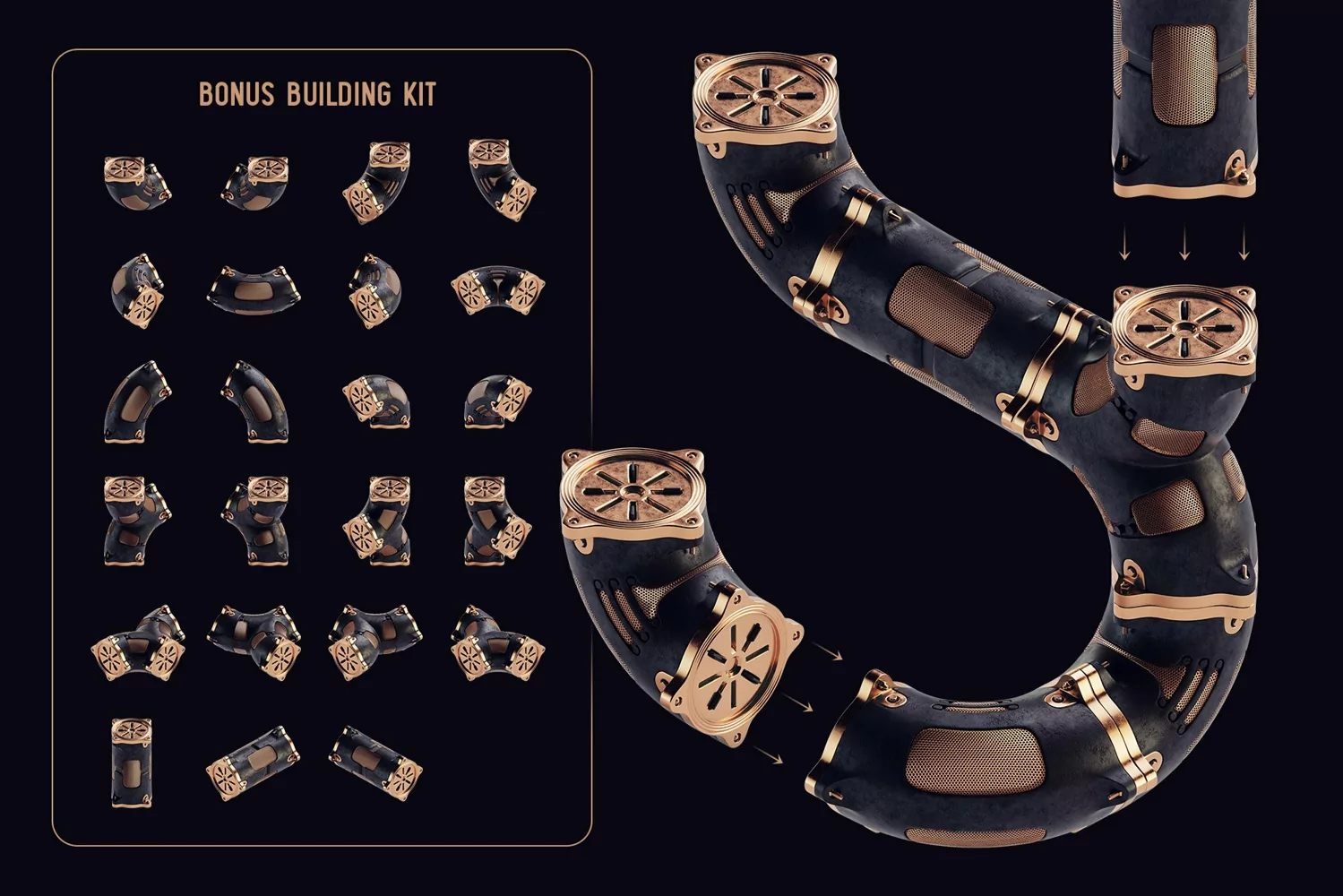
Pipeline - Color Bitmap Font
Hello! Presenting steampunk style 3d font Pipeline. It's a 3d rendered high quality typeface made of copper pipes with hi-tech design elements. First of all it's a color bitmap OpenType-SVG font that can be used as a usual OTF font. Also a set of full resolution PSD files with transparent background is included.
The most fun part of this package is a bonus building kit. It's a set of various PSD files with elements which can be manually composed in any shape.